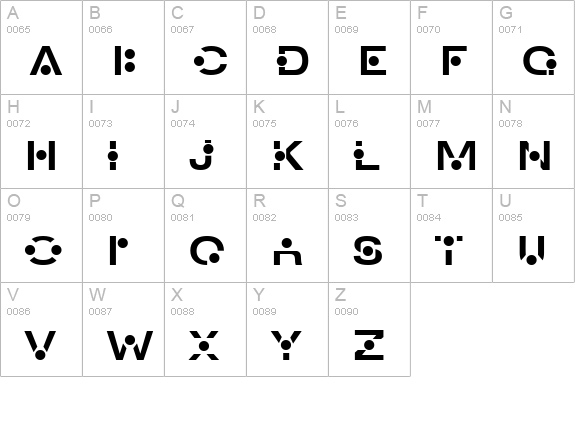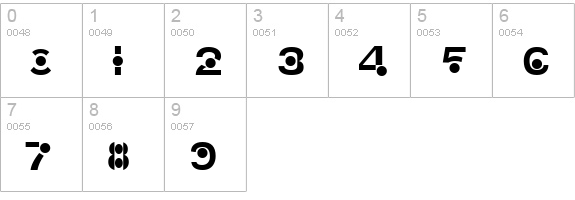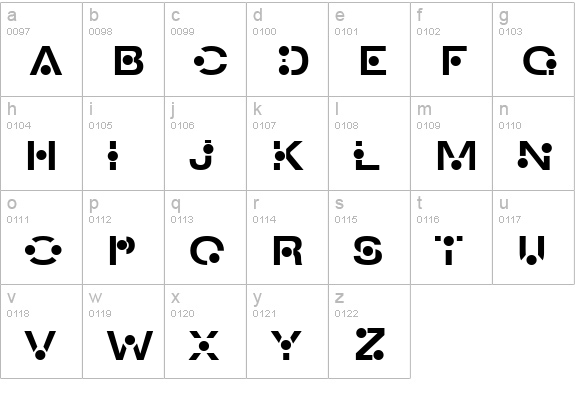
An Creon Font Details
An Creon font is a beautifully designed typeface that combines elegance and modernity. With its sleek lines and distinct shapes, this font exudes sophistication and style. Perfect for adding a touch of class to any project, from invitations to branding to headlines, An Creon font is sure to make a statement. The best part? An Creon font is completely free to download at FontsMarket.com. You can easily access this stunning typeface and enhance your design projects without any cost. Don't miss out on the opportunity to elevate your creations with the timeless appeal of An Creon font. Download it today and let your creativity shine!